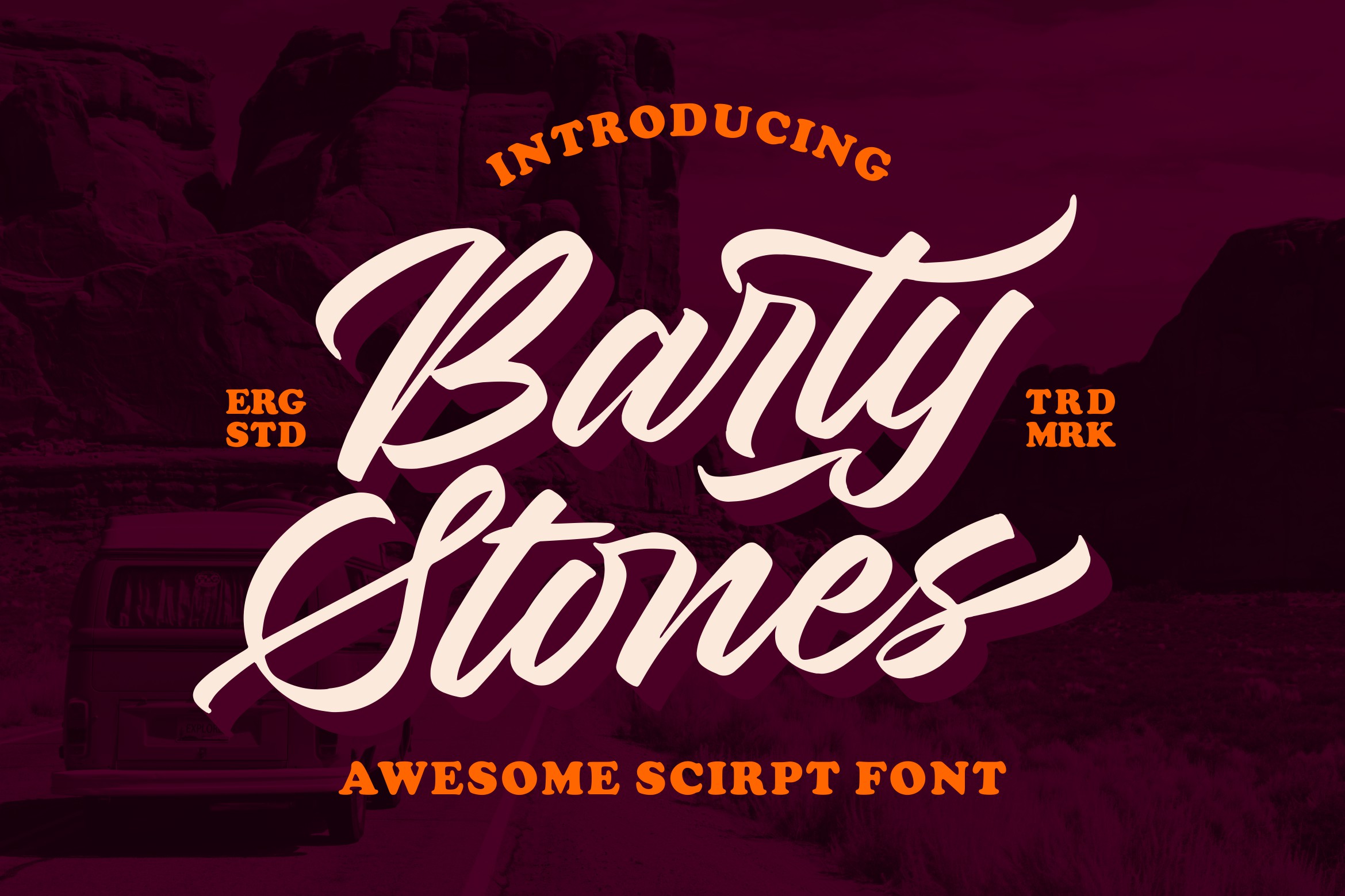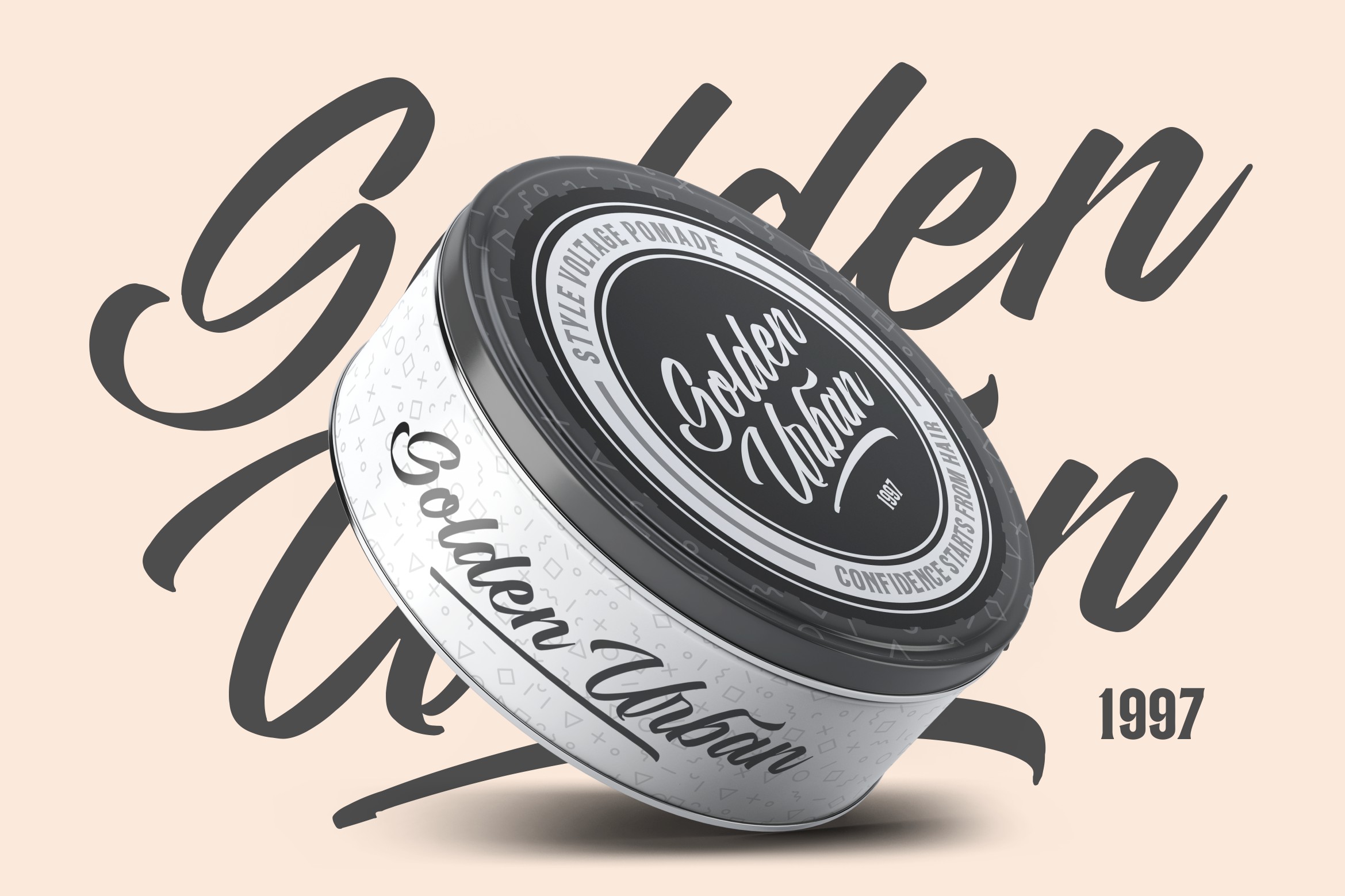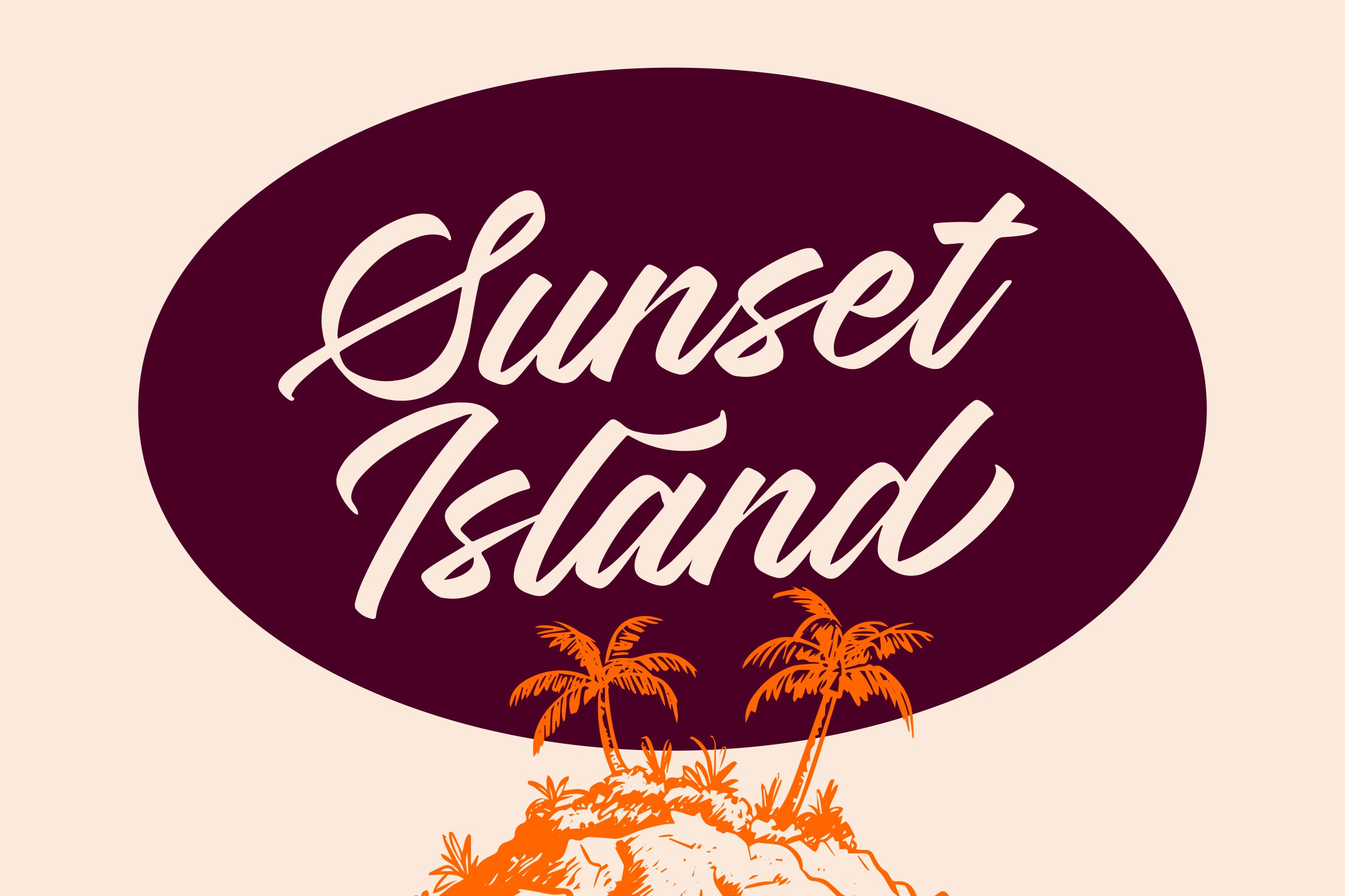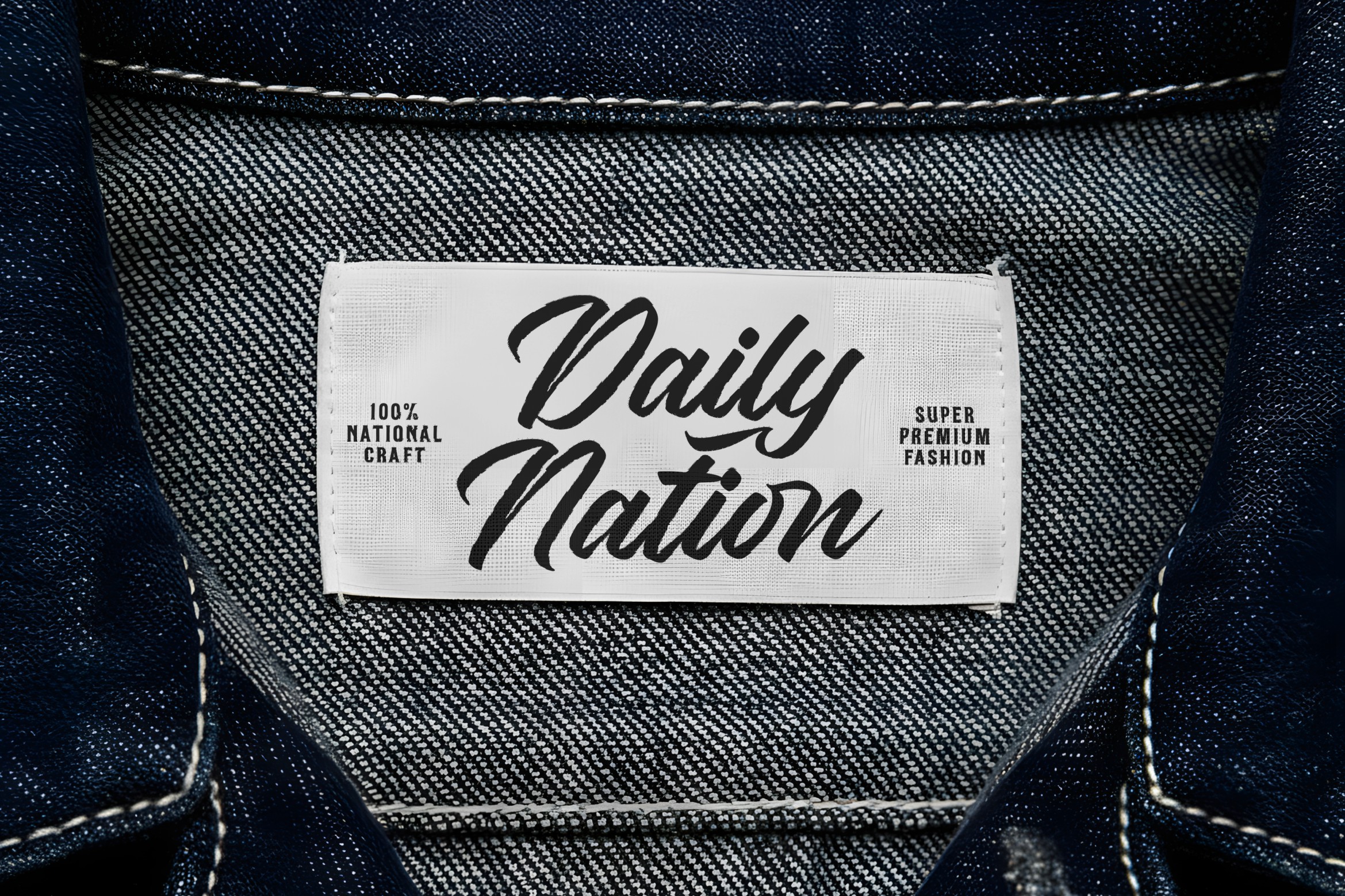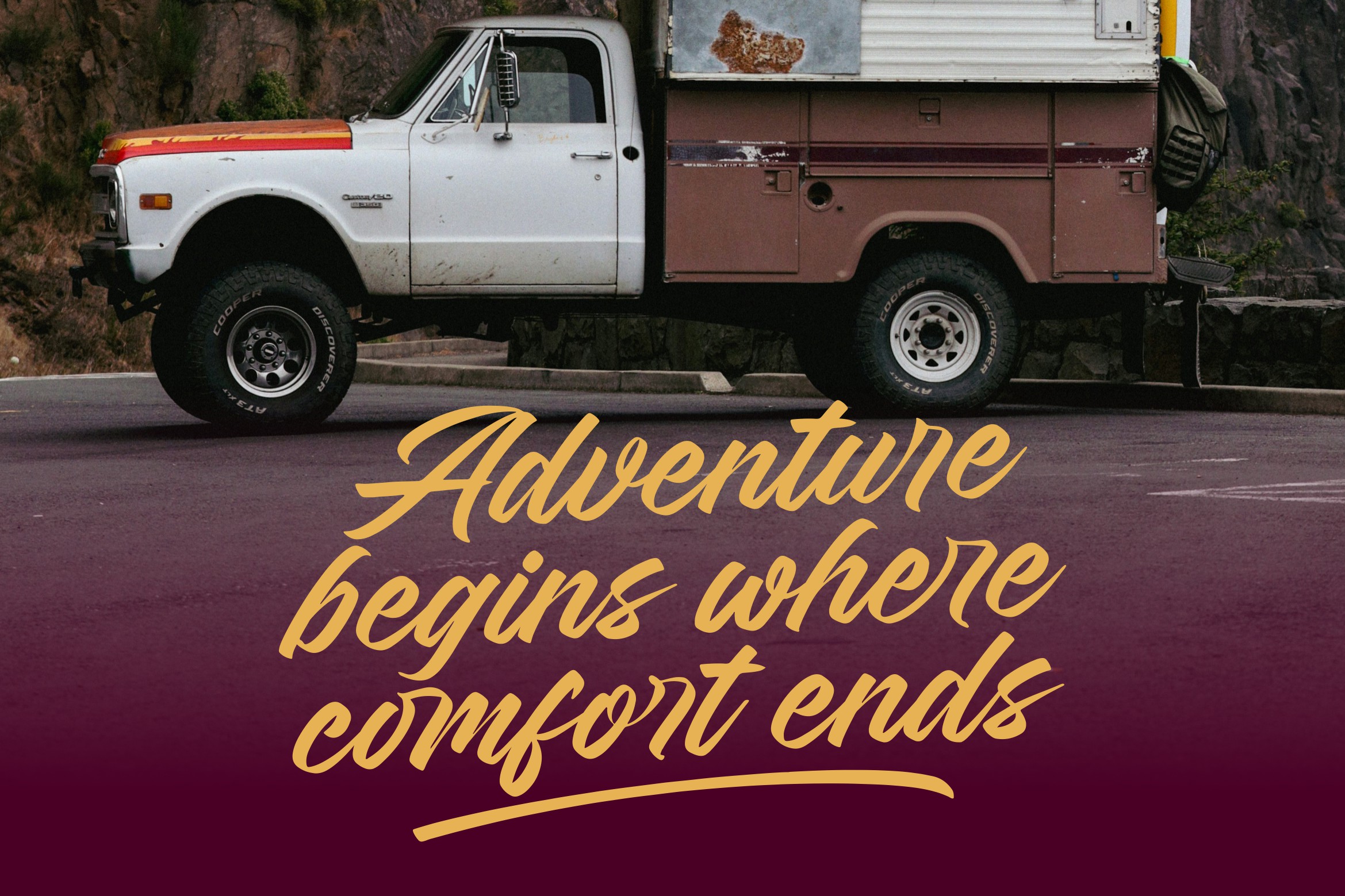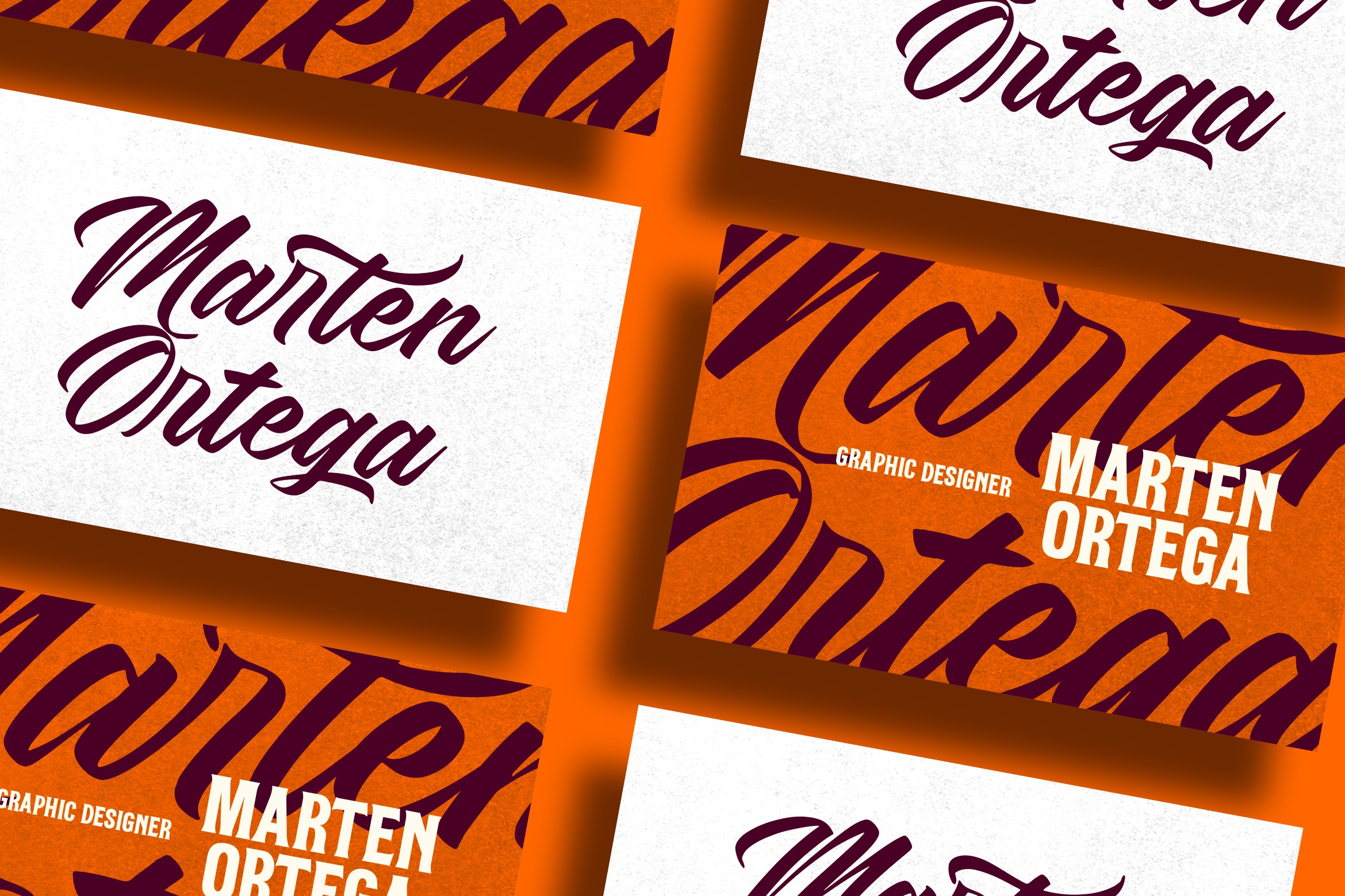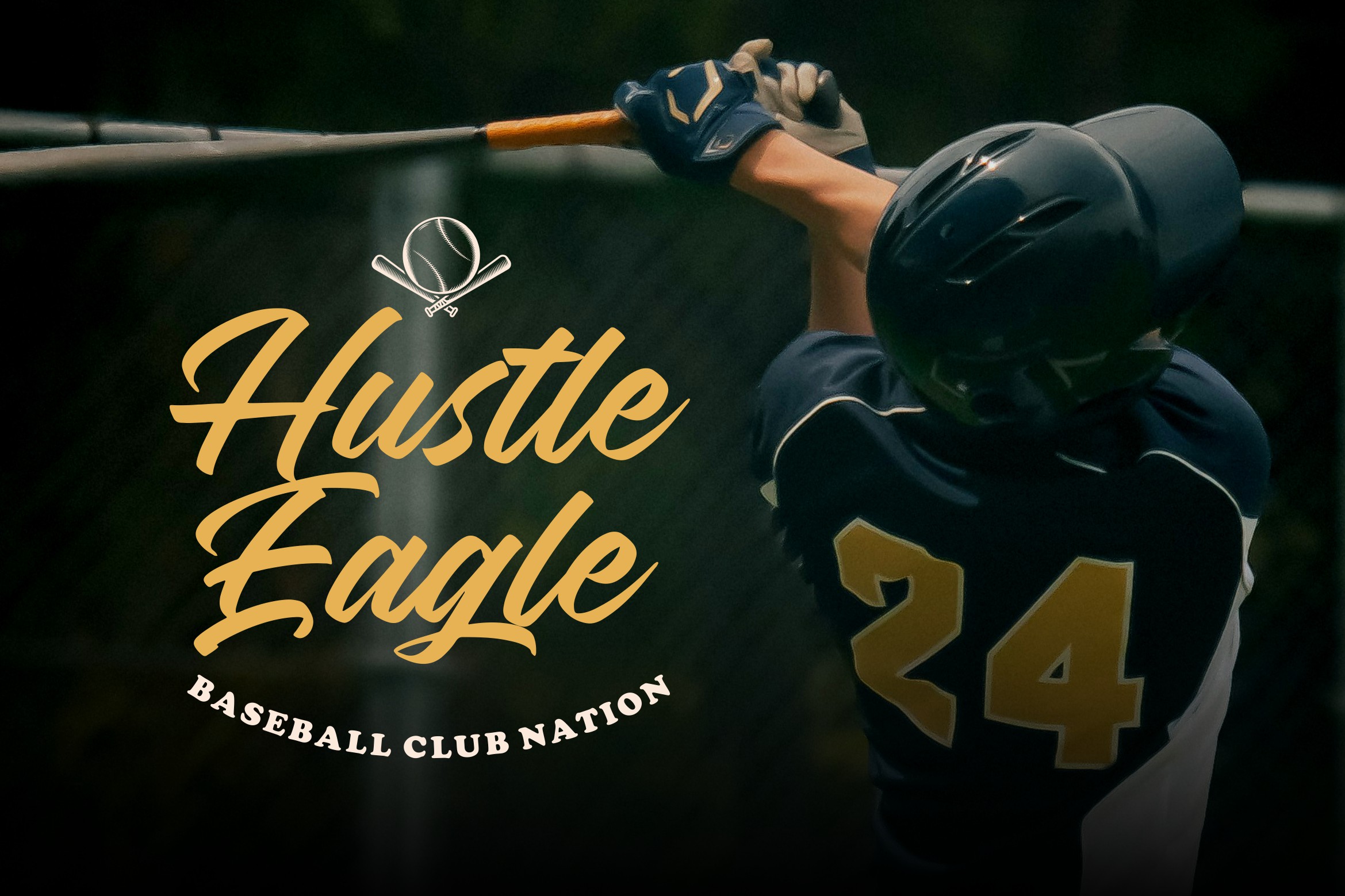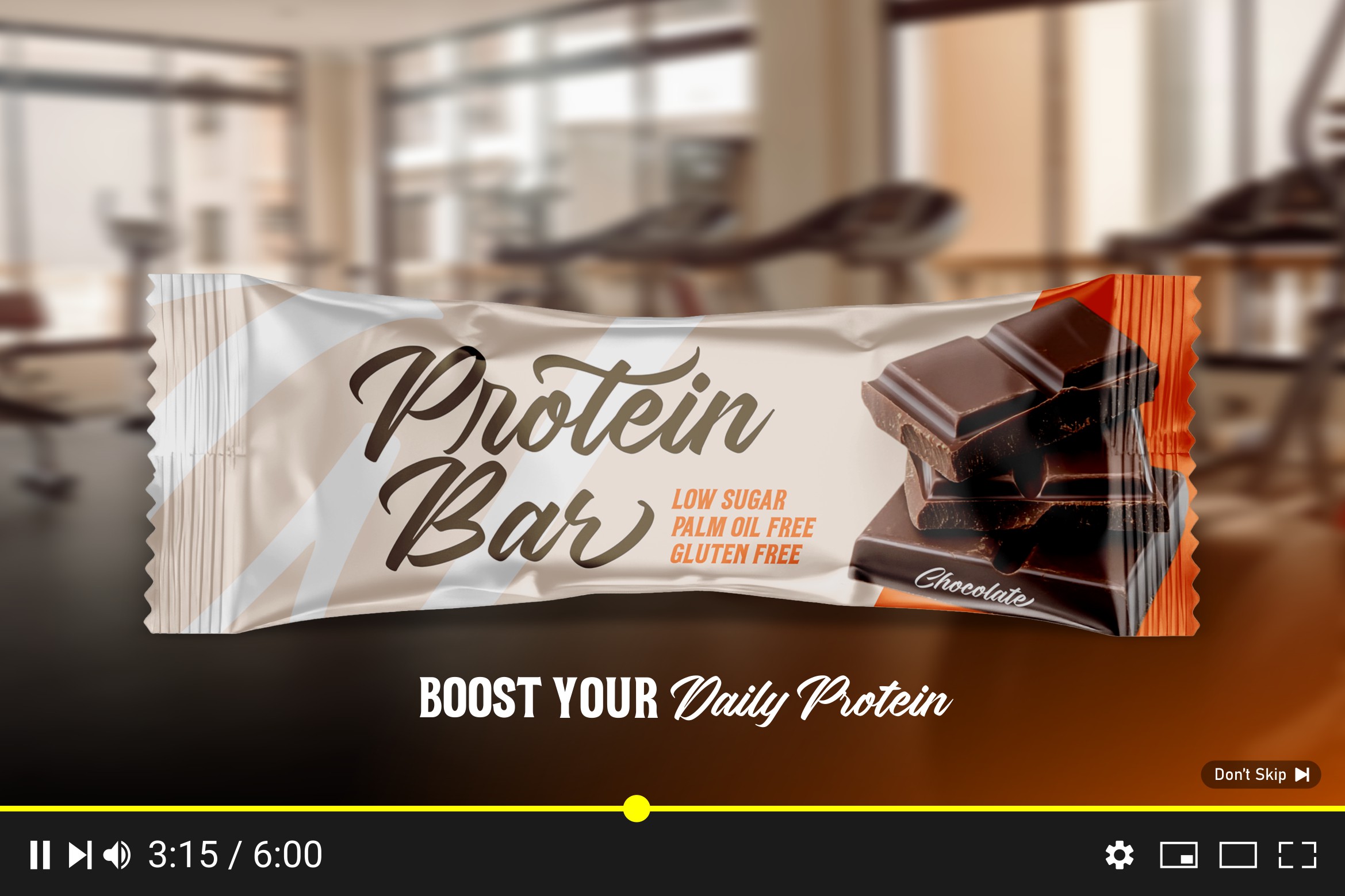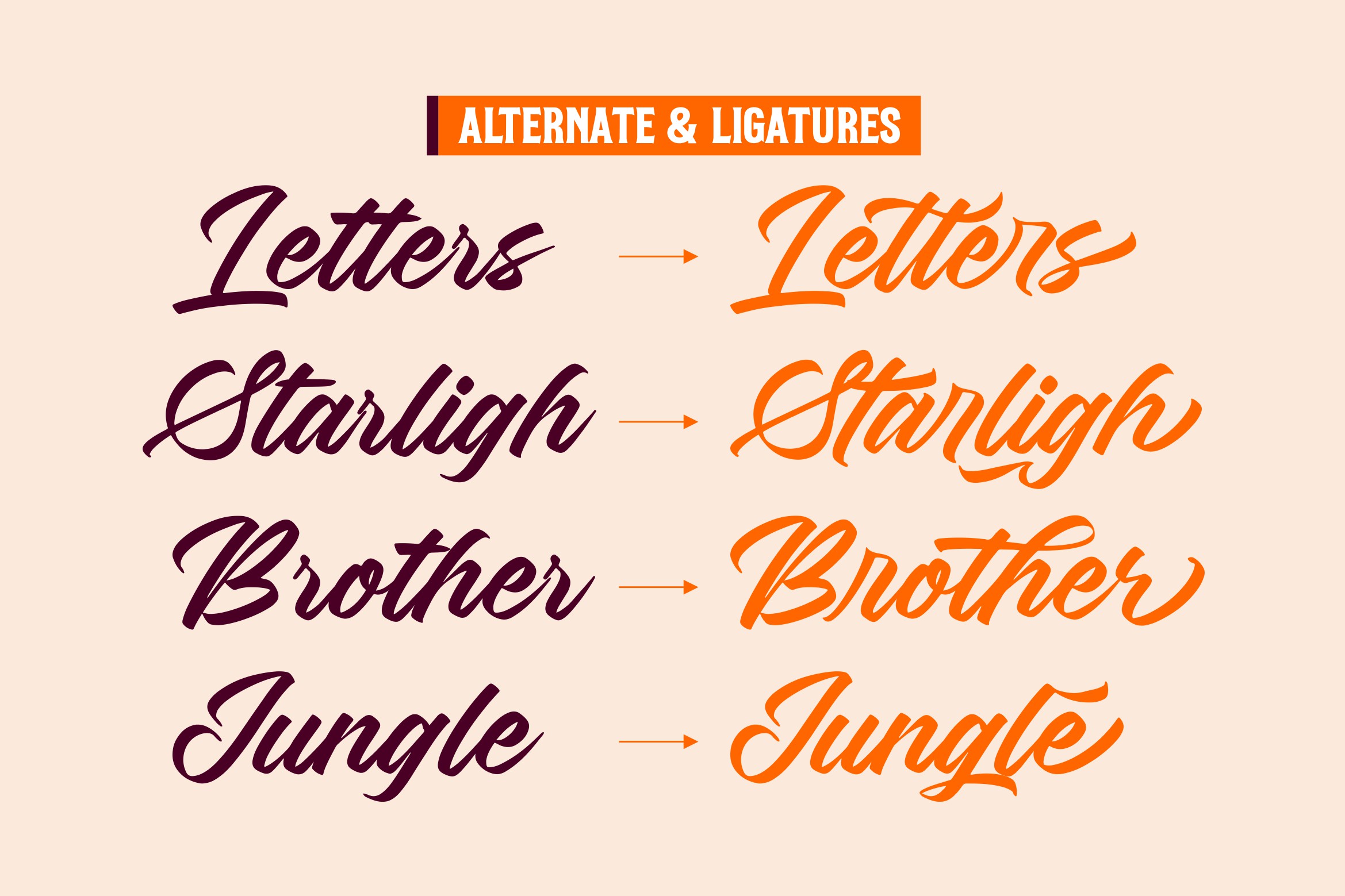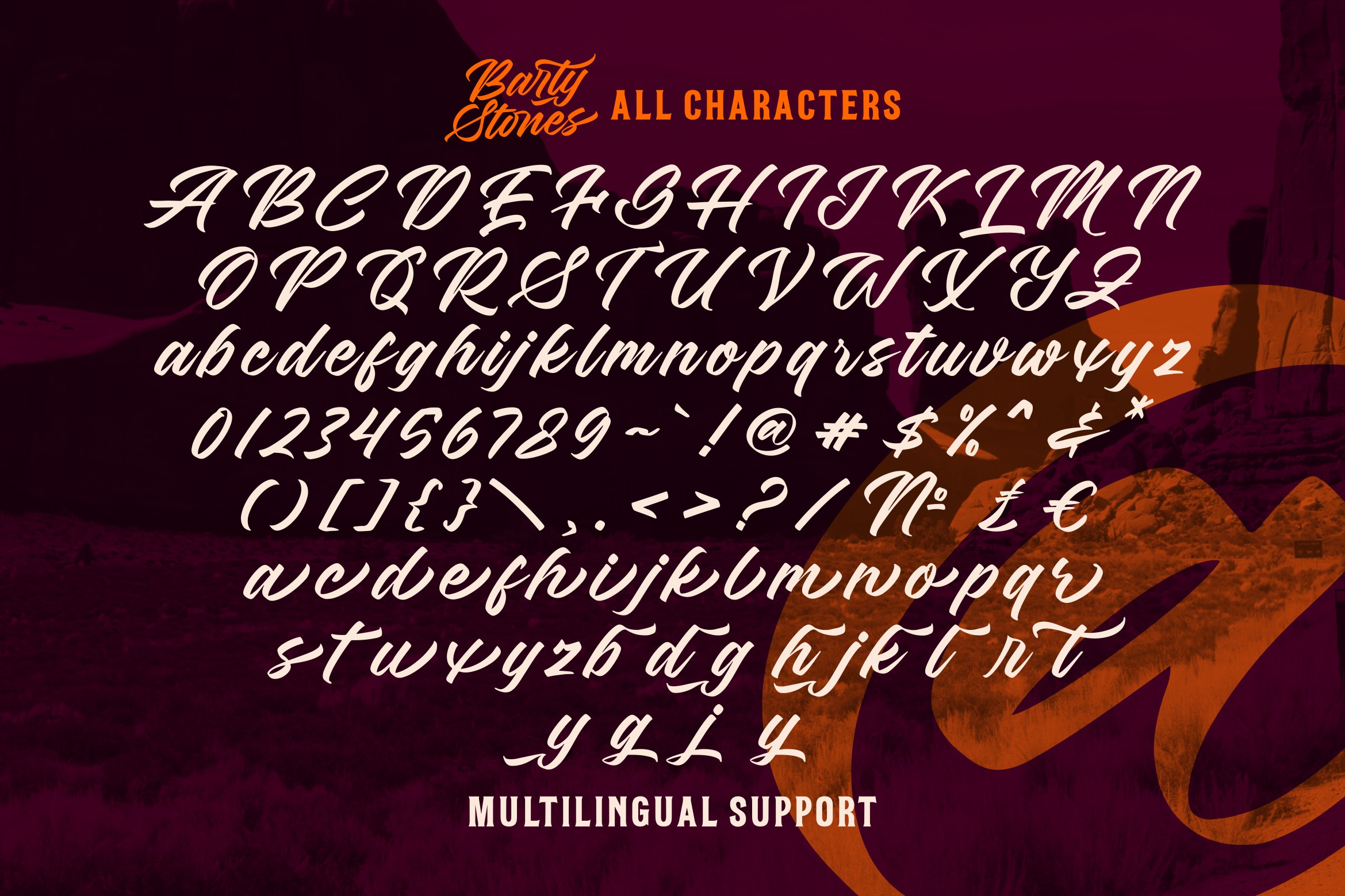
Barty Stones is a bold and expressive script font inspired by vintage road trips and retro signage. With its smooth curves, dynamic strokes, and confident letterforms, it delivers a strong visual presence that instantly grabs attention.
Its handcrafted style blended with a modern touch makes it perfect for logos, branding, posters, packaging, and social media designs. The flowing connections and stylish swashes give your text a natural, lively rhythm, making every composition feel authentic and eye-catching.